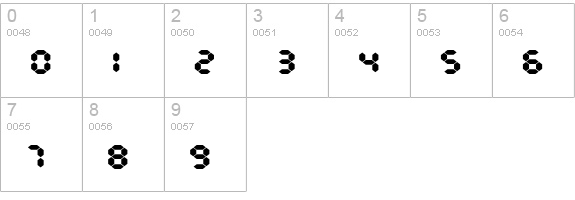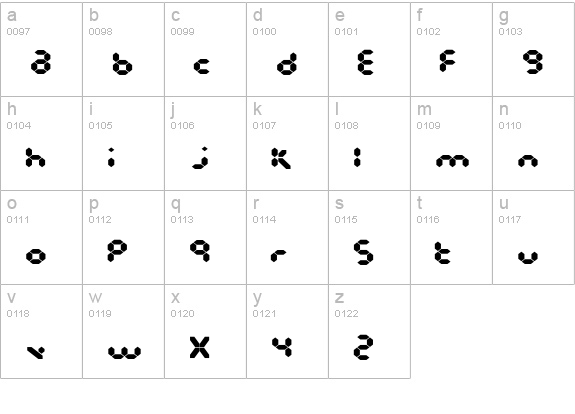
EndlessShowroom-Black Font Details
EndlessShowroom-Black is a maximum-weight, dramatic variant in the EndlessShowroom typeface family \xE2\x80\x94 well suited to maximum-impact headlines, posters, and packaging.
EndlessShowroom-Black font is a bold and striking typeface that commands attention with its sleek and modern design. Perfect for making a statement in headlines, titles, and branding materials, this font exudes confidence and sophistication. The sharp edges and clean lines give it a contemporary feel, making it a versatile choice for a wide range of design projects. The best part? EndlessShowroom-Black font is available for free download at FontsMarket.com. Whether you're a graphic designer, a creative professional, or just someone looking to add a touch of style to your projects, this font is a must-have in your collection. Download it now and elevate your designs with the timeless elegance of EndlessShowroom-Black font.